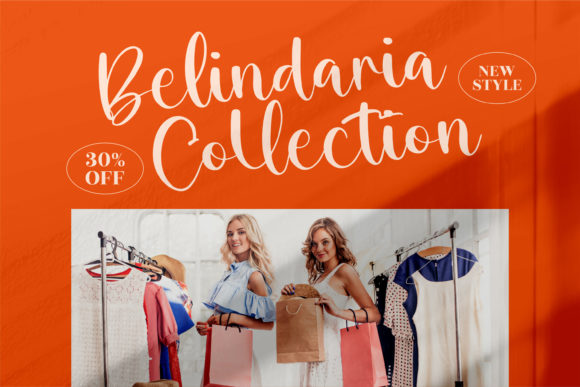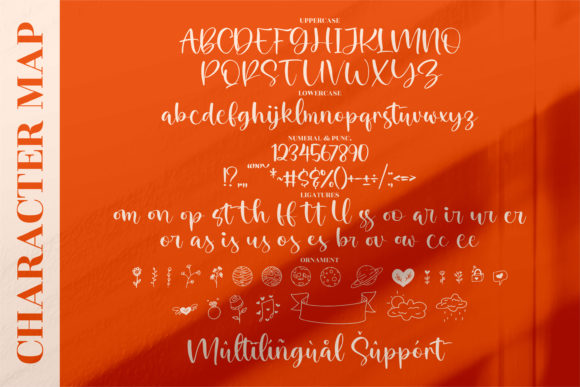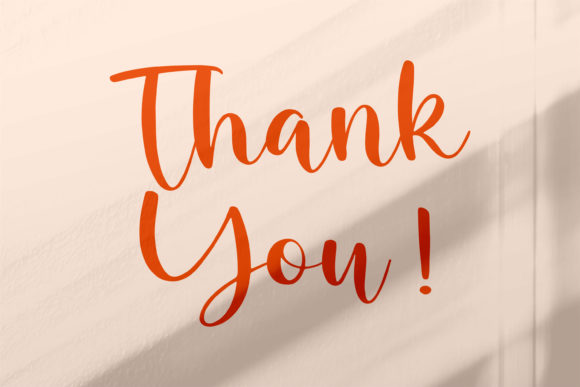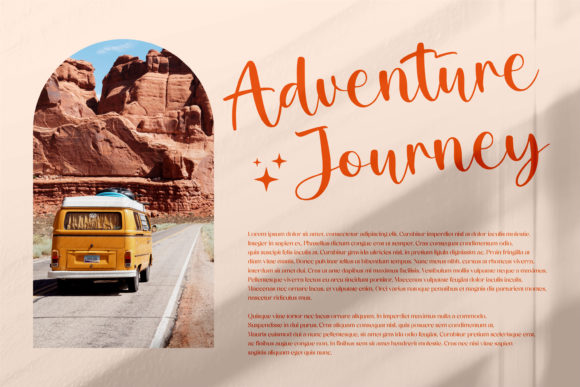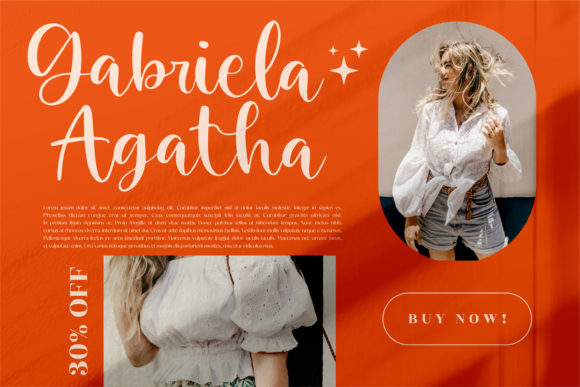
About Palister Honey Font
Palister Honey is a gorgeous and chic handwritten font. It will add a fashionable spark to any design project that you wish to create! This font is PUA encoded which means you can access all of the amazing glyphs and ligatures with ease!